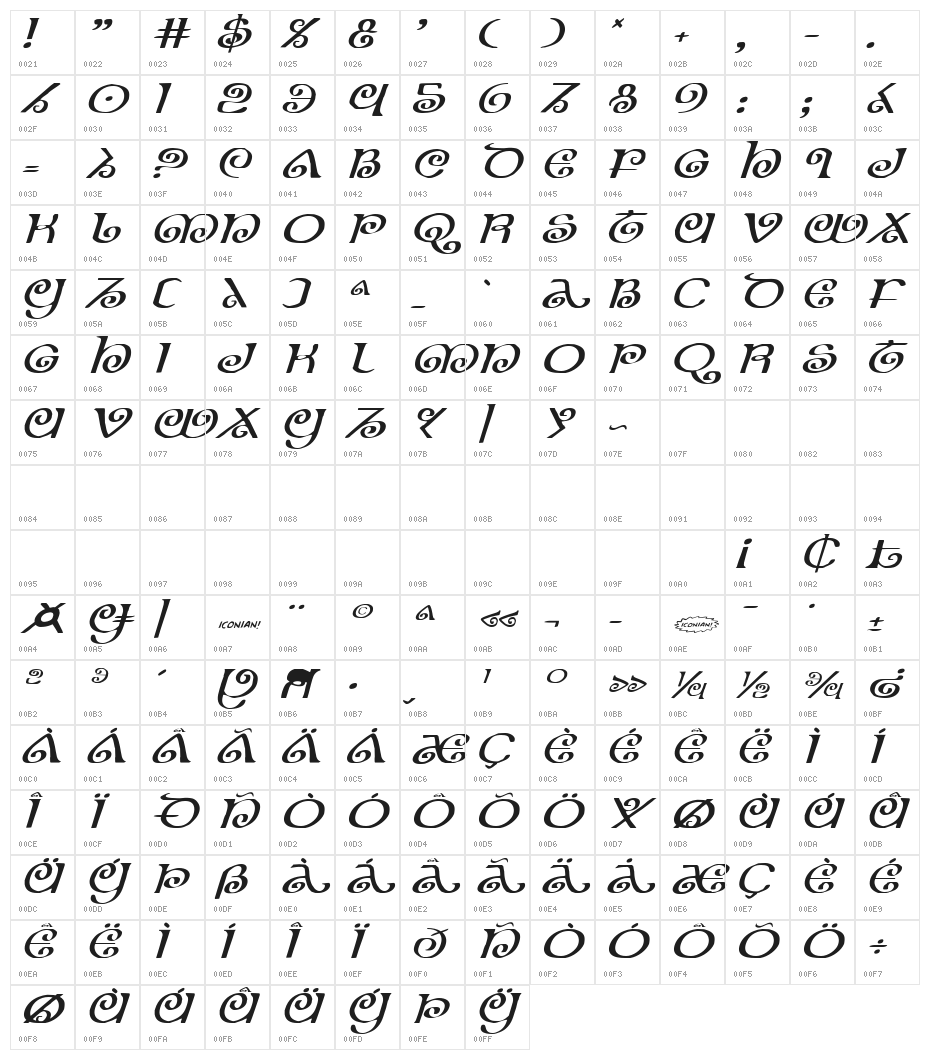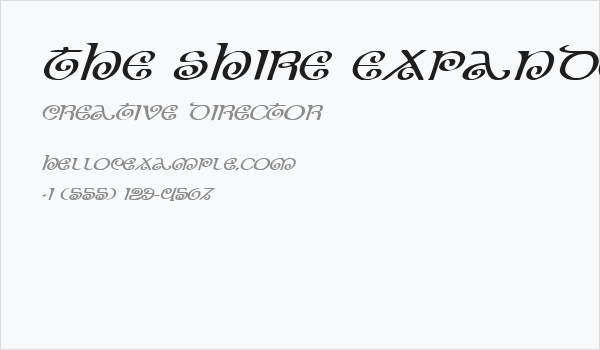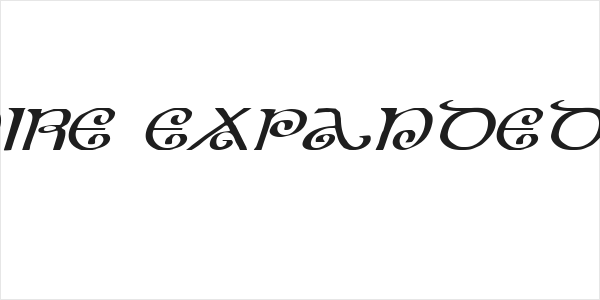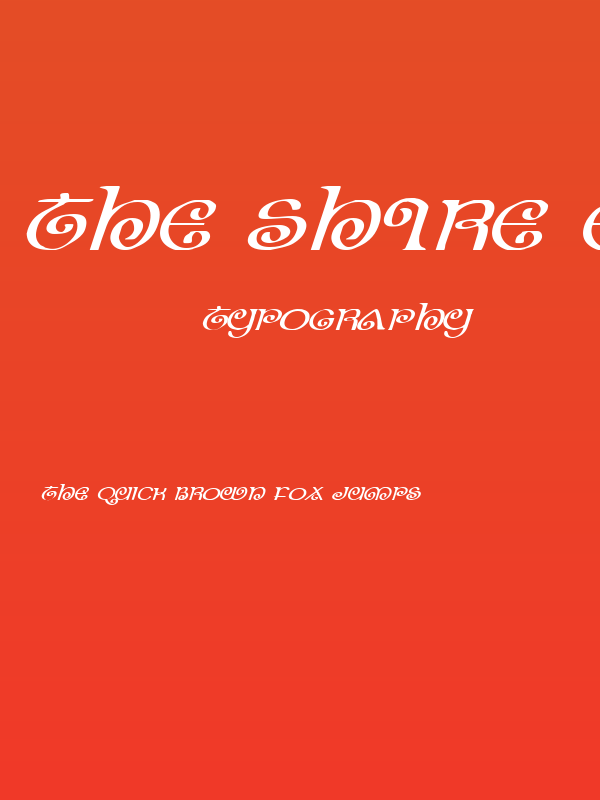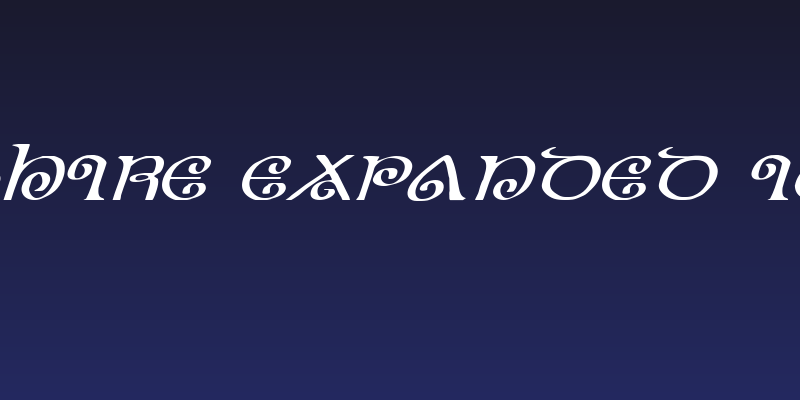
The Shire Expanded Italic Font
The Shire Expanded Italic Description
This font features a whimsical and decorative style, characterized by its unique and playful curves. Each letter is adorned with intricate swirls and flourishes, giving it a fantasy-like appearance. The uppercase and lowercase letters maintain a consistent design, with the lowercase letters mirroring the ornate style of the uppercase. The numerals are equally decorative, incorporating the same swirling elements. The special characters are designed to match the overall aesthetic, ensuring a cohesive look across all glyphs. This font's expanded and italicized form adds to its dynamic and flowing nature, making it stand out in any design.